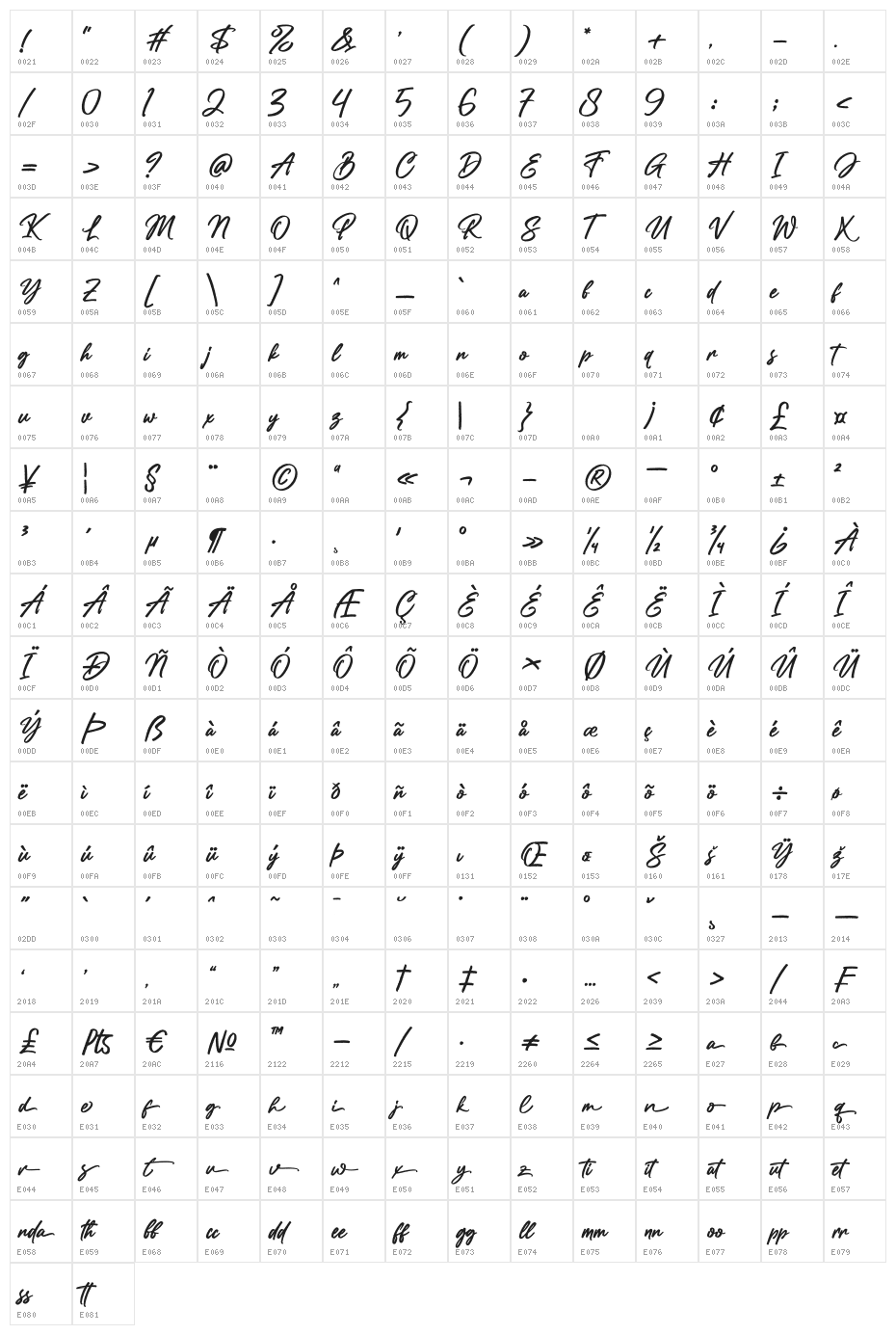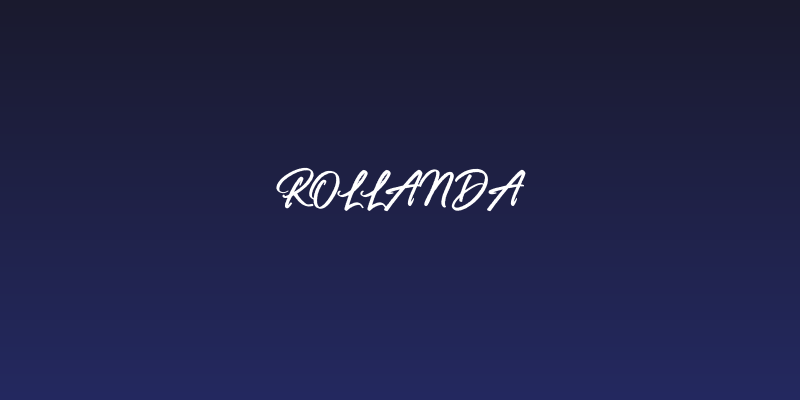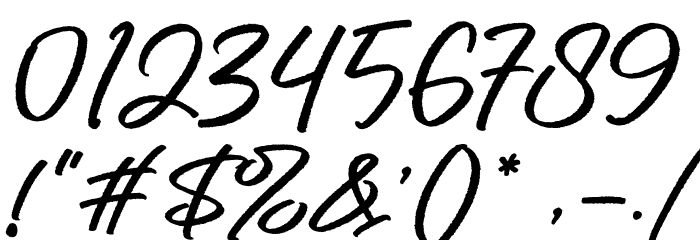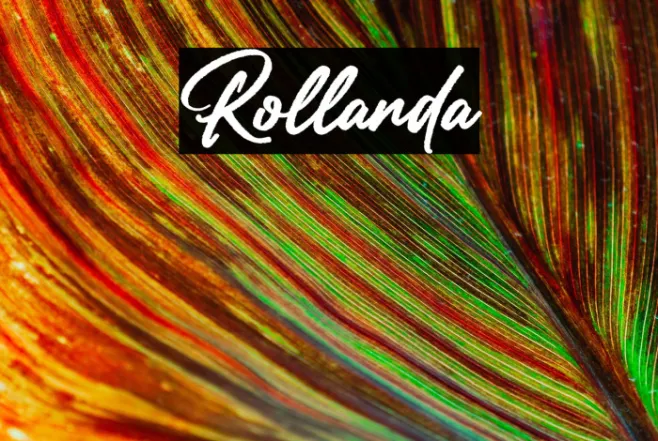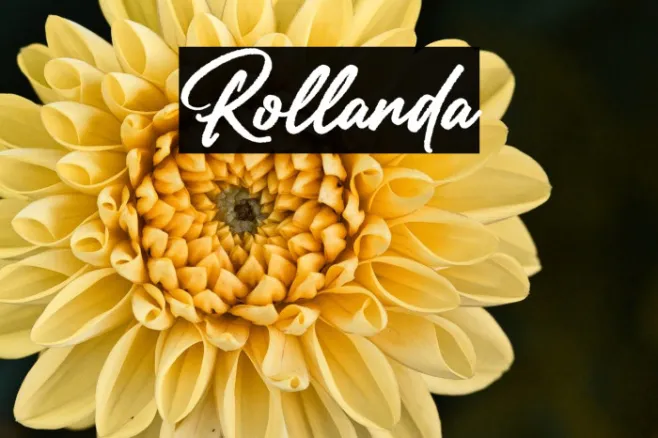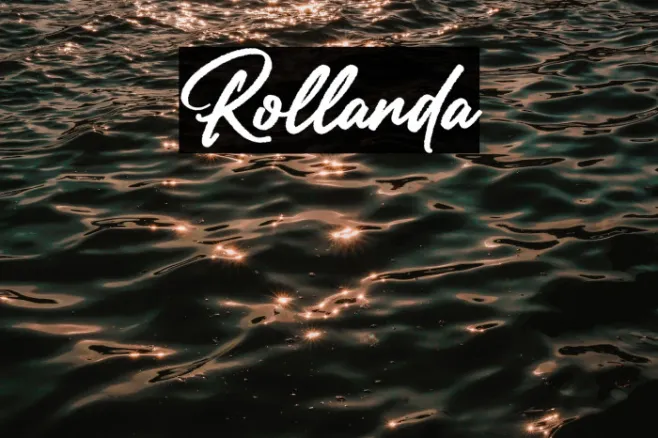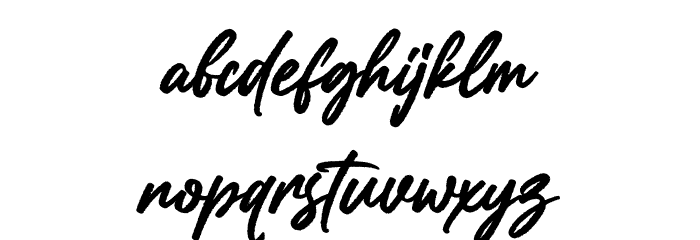
Rollanda Font
Rollanda Description
This font exudes a dynamic and energetic vibe with its bold, cursive script style. The characters are fluid and connected, giving a sense of movement and elegance. The uppercase letters are slightly more elaborate, with sweeping curves and loops, while the lowercase letters maintain a consistent flow. The numbers and special characters are designed to match the overall aesthetic, ensuring a cohesive look. This font is perfect for projects that require a personal touch or a sense of sophistication. Its bold strokes and smooth transitions make it stand out, while still being legible and versatile.
| Use Case | Logos, Invitations, Social media graphics |
| Proposed Projects | Ideal for wedding invitations, branding, logos, and social media graphics. |